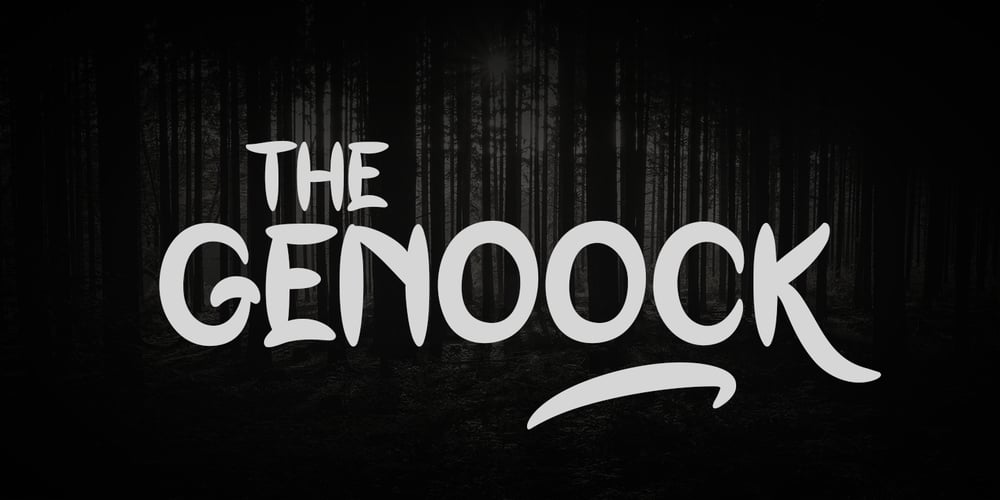
Genoock Font Family was designed by Faka Pratama Putra and published by Tama Putra. Genoock contains 1 styles and family package options. Genoock is a bold handwritten typeface. It is suitable for any design needs, branding, cover title, t-shirts, posters and more. The Genoock typeface includes multi-lingual and currency support, numerals, and punctuations. It comes comes with stylistic alternates.